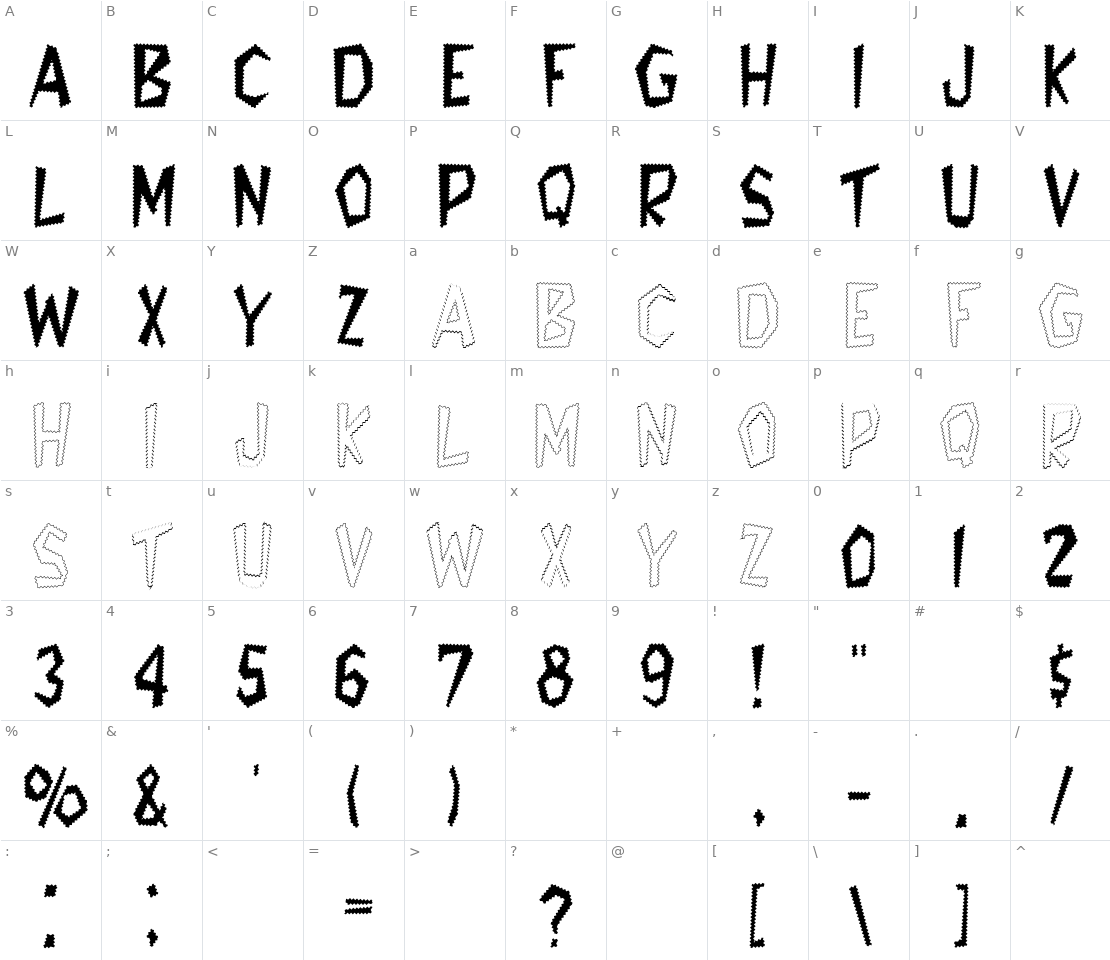
Tappys
Tappys is a quirky outline display face with dashed strokes that give each letter a stitched or perforated quality, like something cut from a craft project. The thin, handmade feel keeps it playful and informal, landing best in headlines, posters, and decorative contexts where a little personality goes a long way.